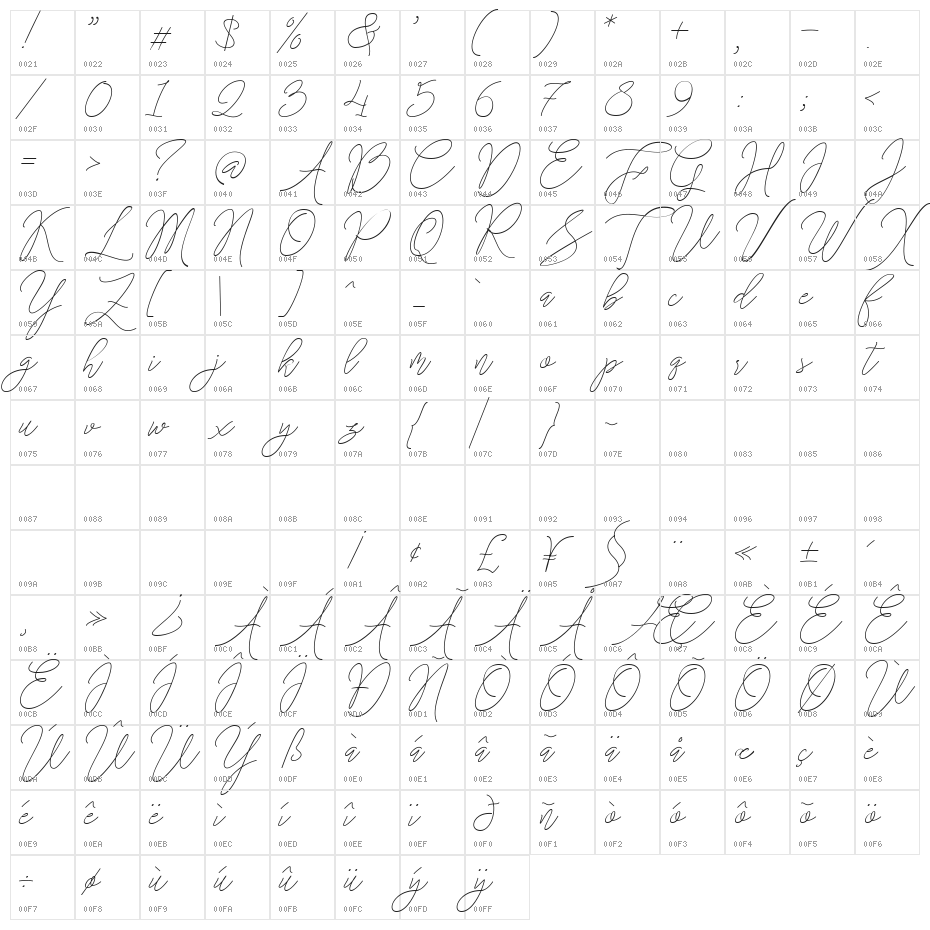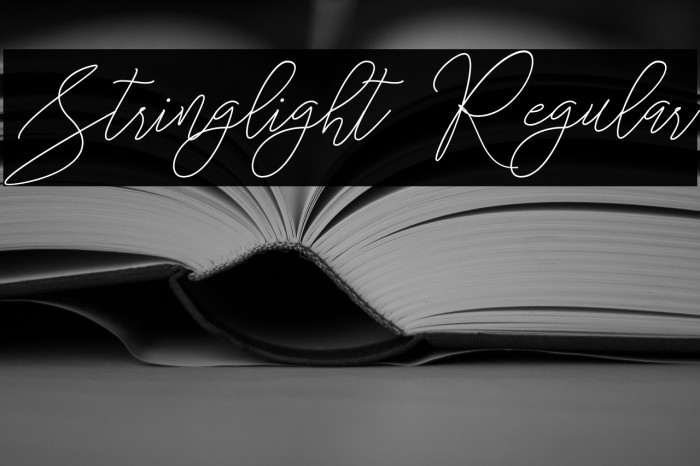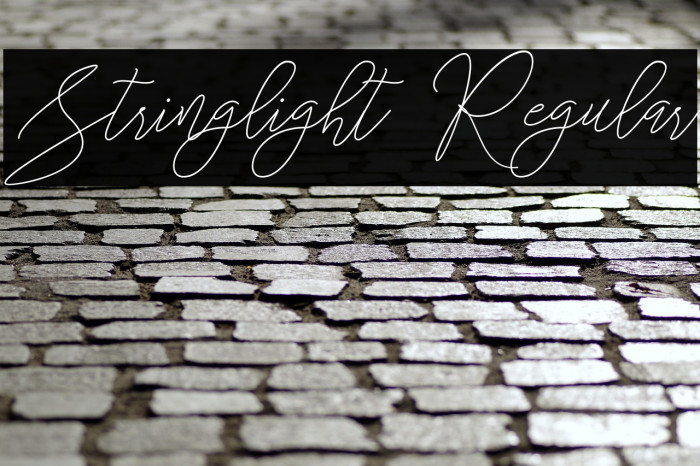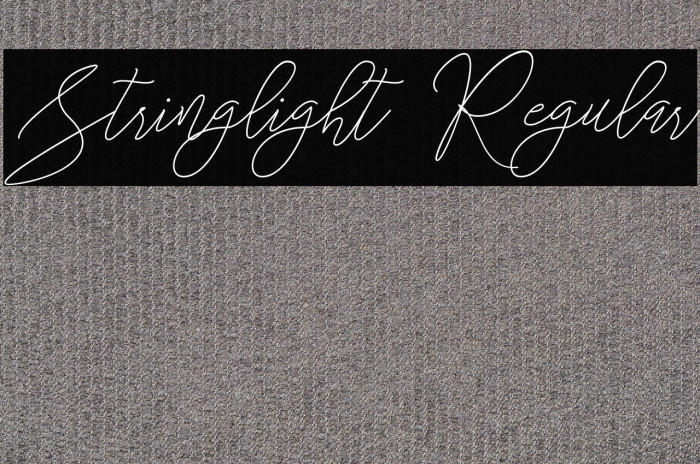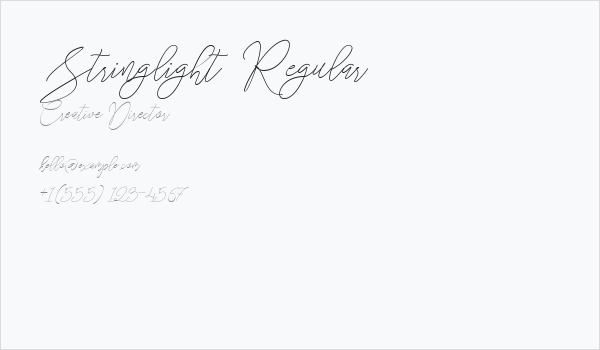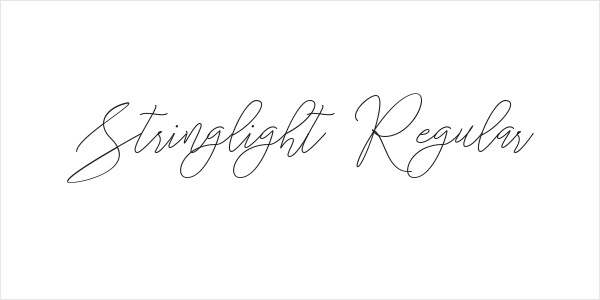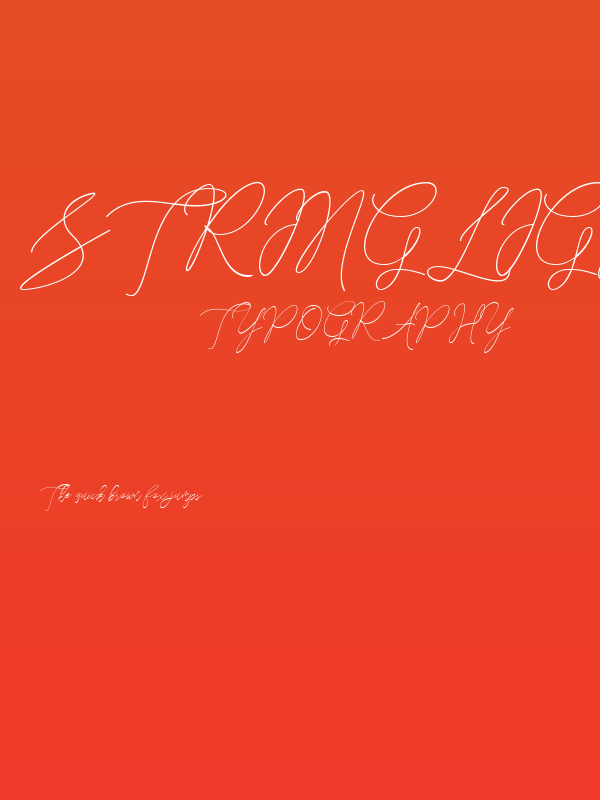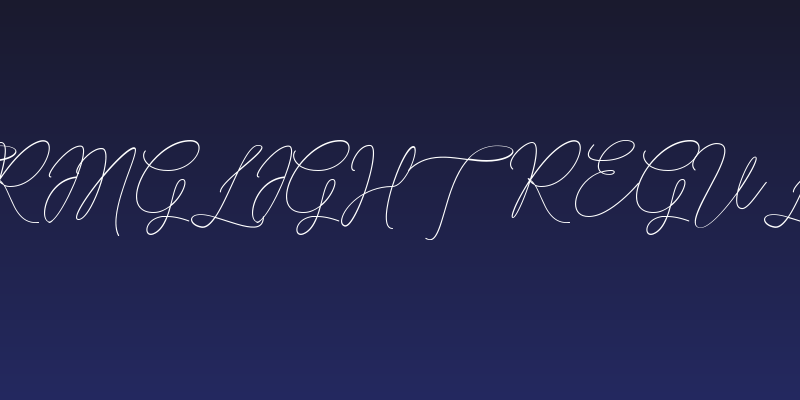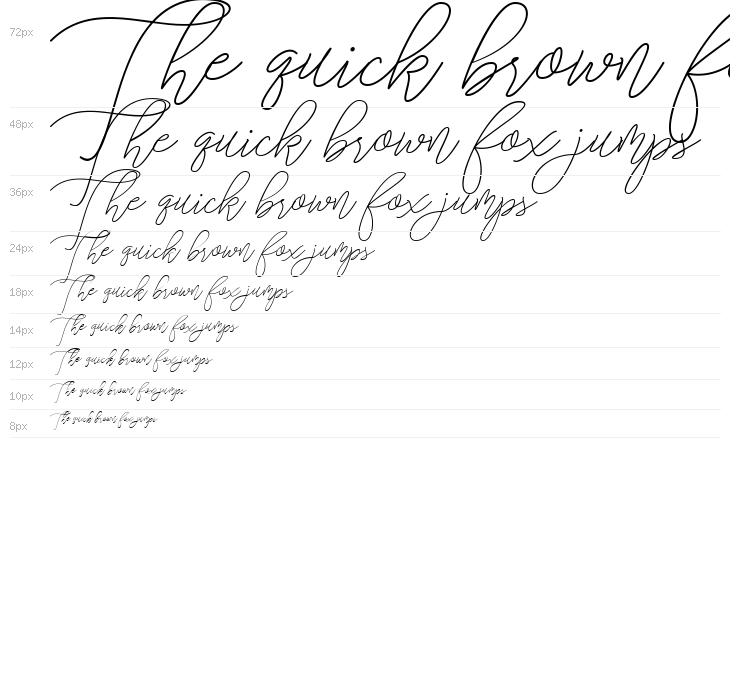
Stringlight Regular Font
Stringlight Regular Description
A delicate and flowing script font with elegant curves and a handwritten style, featuring smooth, continuous strokes.
| Use Case | Logos, Invitations |
| Proposed Projects | Invitations, greeting cards, elegant branding. |